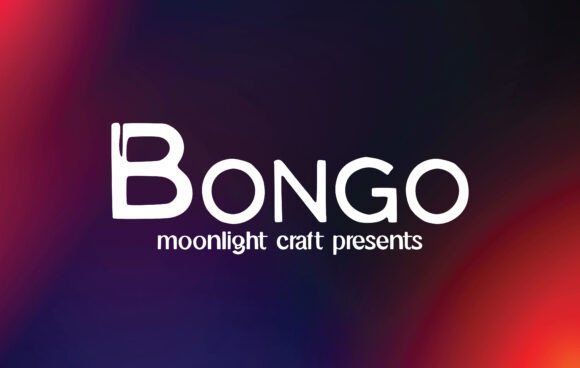
Have you ever stared at a blank canvas, feeling like your design is missing that one special element? The struggle is real, but we’re here to help. Introducing the Bongo Font, the perfect addition to your collection that will take your projects to the next level. This versatile font is designed to work beautifully for a wide range of applications, from magazine headlines to social media posts, and everything in between.
As a designer, you know the importance of having a reliable font that can elevate your work. The Bongo Font is more than just a pretty face – it’s a valuable tool that will save you time and effort in the long run. Its clean and modern design makes it easy to read, even in smaller sizes, and its versatility means you can use it for anything from branding materials to wedding invitations.
Bongo Font Key Features
- Font Family: Bongo is a sans-serif font family, designed for modern and creative applications.
- Unique Characteristics: Bongo’s distinctive rounded edges and geometric shapes make it ideal for creating visually appealing and modern designs.
- Language Support: Supports a wide range of languages, including Latin, Cyrillic, and Greek scripts, making it suitable for global design projects.
Bongo Font Review
I recently had the chance to work with the Bongo Font, and I’m sharing my honest thoughts on its strengths and weaknesses. Overall, I found it to be a unique and playful font that can add some fun to your designs. ✨ Here are a few things that work well:
- Its hand-drawn feel gives it a personal touch, making it perfect for creative projects or brand identities.
- The font has a wide range of weights and styles, allowing you to customize it to fit your design needs.
- The Bongo Font is highly legible, even at smaller font sizes, which is a must-have for any font.
- The font’s uniqueness can also be a drawback, as it may not be suitable for more formal or professional projects.
- The Bongo Font can be quite busy, with a lot of details and flourishes, which can make it difficult to read at certain angles or in small sizes.
- The font’s irregularities can also make it challenging to pair with other fonts, as it may not be compatible with all typography systems.
Overall, the Bongo Font is a great choice for designers who want to add some personality to their work. While it has its limitations, its unique charm and versatility make it a valuable addition to any design toolkit.
The Bongo Font is perfect for creating playful and eye-catching titles, headings, and labels. Use it to add a fun and whimsical touch to your designs, such as:
- Food and drink menus
- Children’s books and educational materials